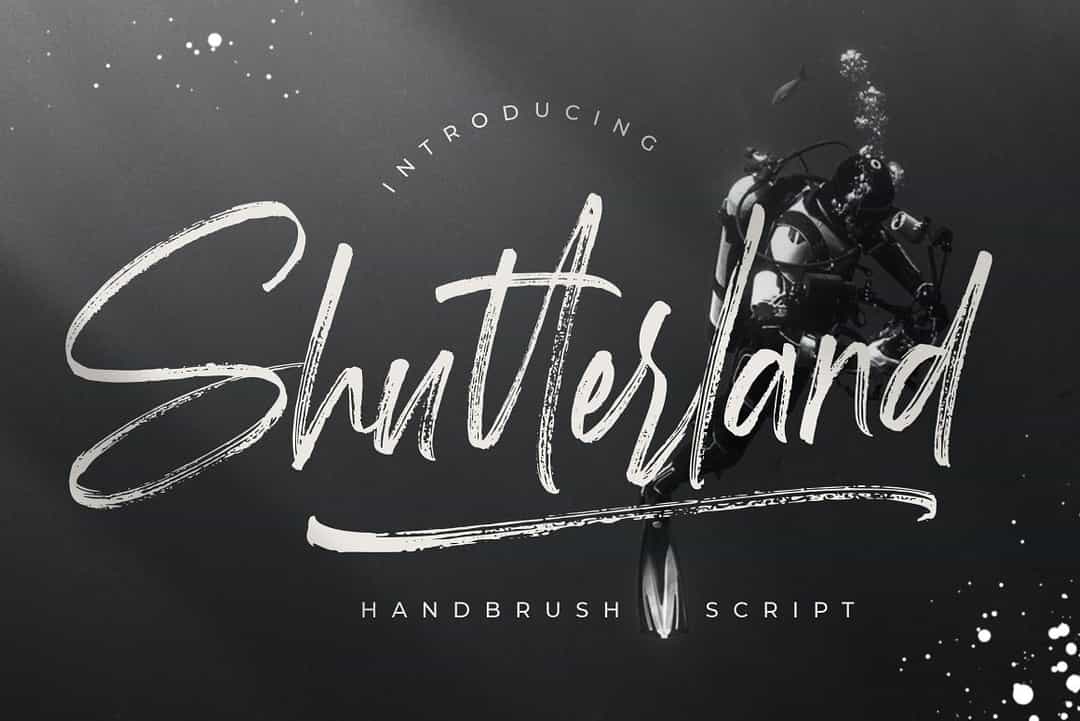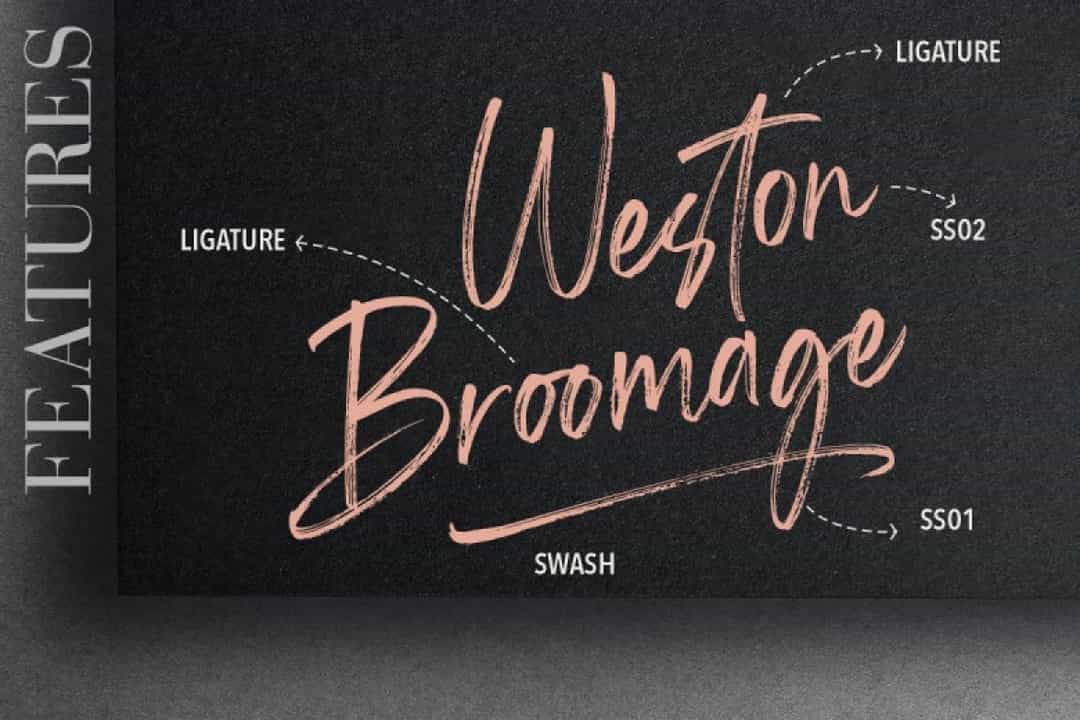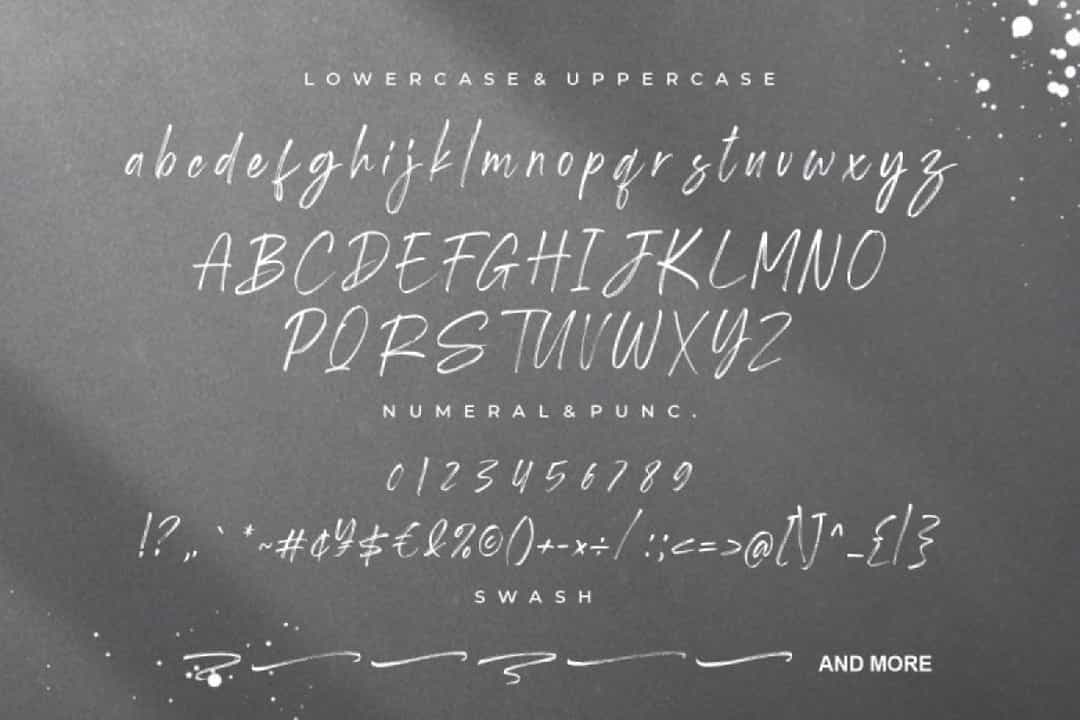
Shutterland can be characterized as a real hand-brushed font with a brush stroke effect, which will be perfect for logos, wedding works, and social media posts, advertisement, packaging of products, labels photos, watermark for invitations, stationery works that need handwriting.